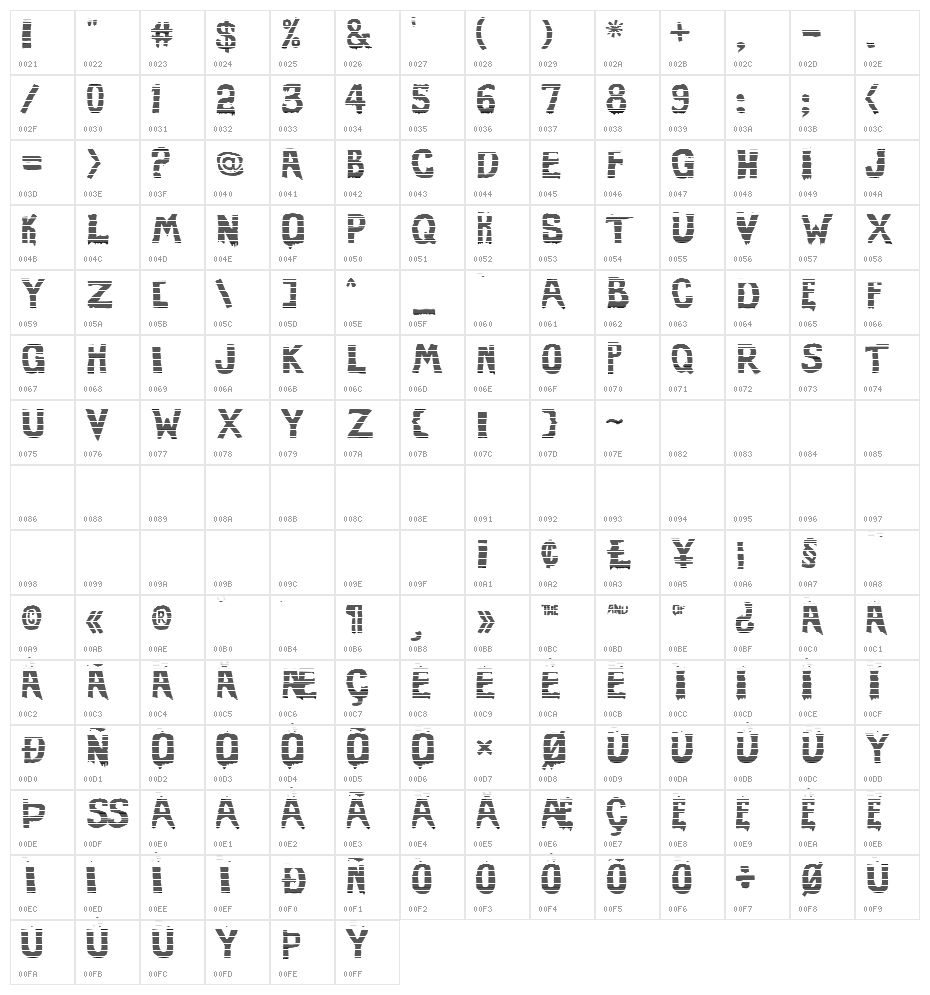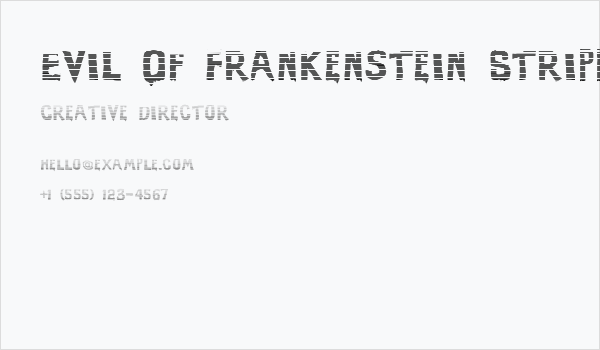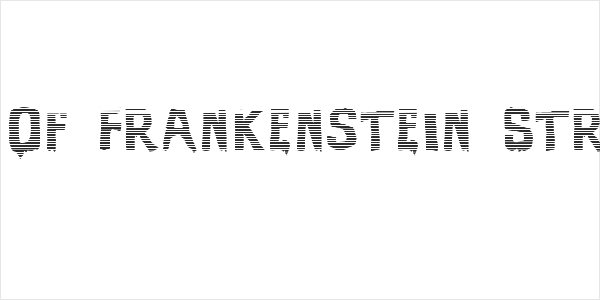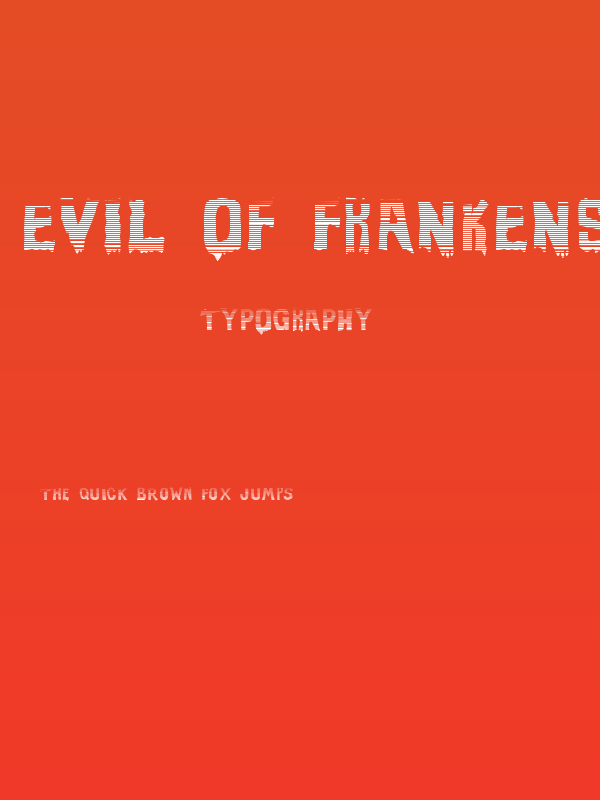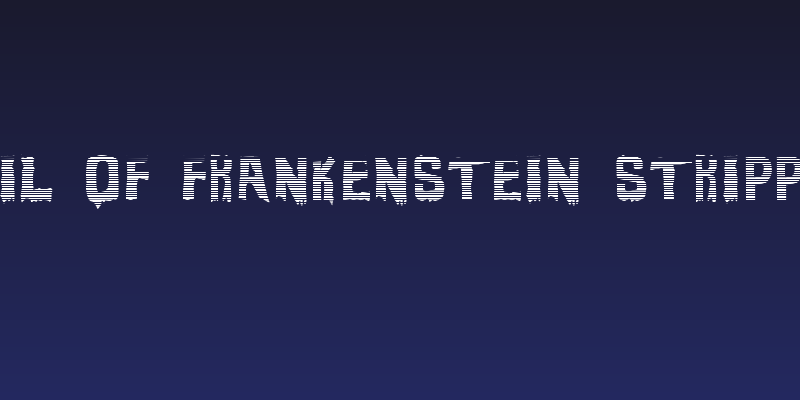
Evil Of Frankenstein Stripped Font
Evil Of Frankenstein Stripped Description
This font features a unique, distressed appearance with horizontal stripes running through each character, giving it a rugged and edgy look. The uppercase letters are bold and prominent, while the lowercase letters maintain a consistent style. The numbers and special characters follow the same design, ensuring uniformity across all elements. The font's design is reminiscent of classic horror themes, making it ideal for projects that require a dramatic and eye-catching typeface. The striped pattern adds a layer of complexity and texture, enhancing its visual appeal.
| Use Case | Headlines, Posters, Logos |
| Proposed Projects | Ideal for horror movie posters, Halloween event flyers, themed party invitations, and graphic novels. |